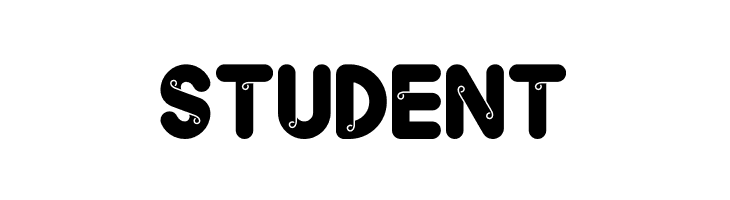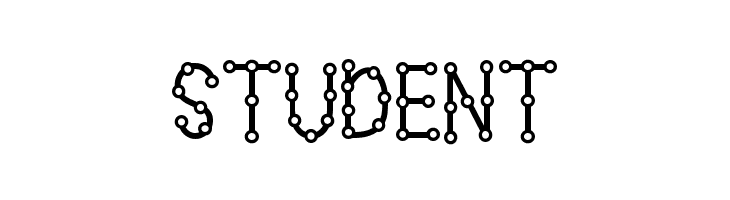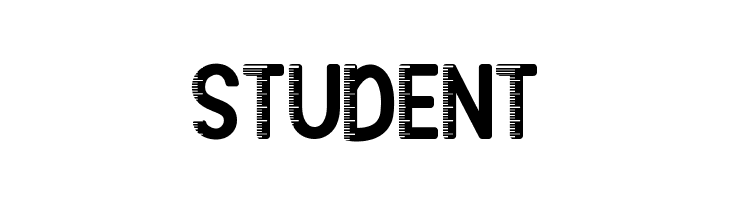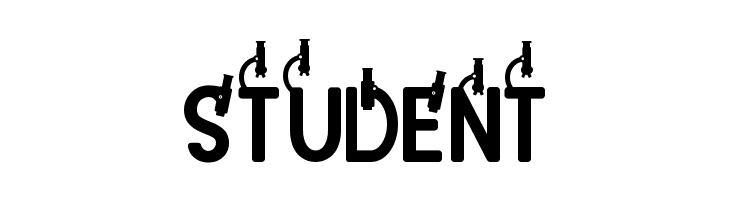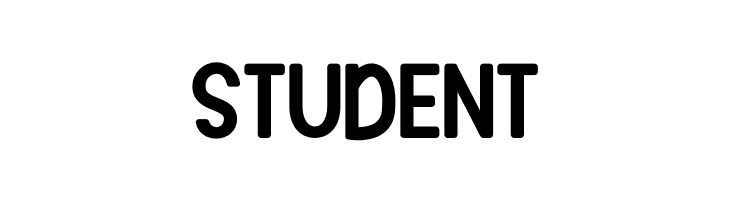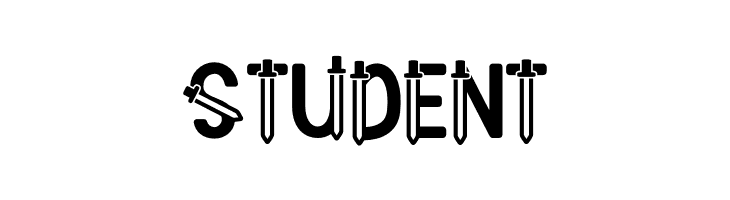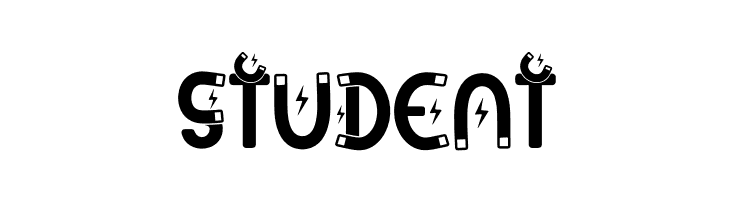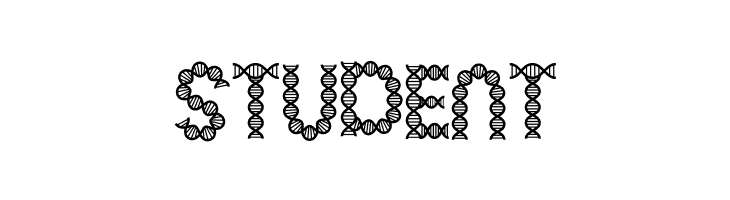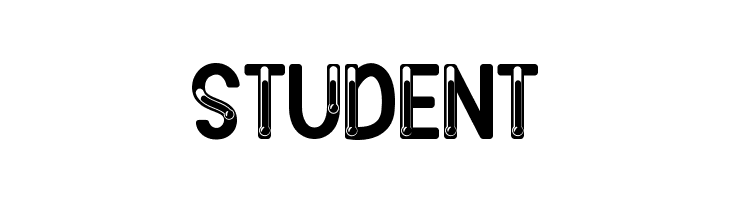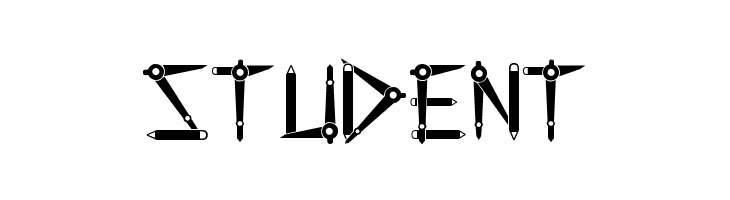
Bangoo PERSONAL USE ONLY! Font
Font by Kong Font
A bold, rounded sans-serif font with decorative accents on certain characters.
Cake Couture Font
Font by PutraCetol Studio
A bold, rounded, playful sans-serif font.
Cake Couture Eight Font
Font by PutraCetol Studio
A dotted, rounded display font suitable for playful and decorative uses.
Cake Couture Five Font
Font by PutraCetol Studio
A decorative, stitched outline font with a playful and whimsical style.
Cake Couture Four Font
Font by PutraCetol Studio
A textured, rounded, playful display font with a hand-drawn style.
Cake Couture Nine Font
Font by PutraCetol Studio
A whimsical, dessert-themed font with rounded, bold characters topped with icing-like embellishments.
Cake Couture One Font
Font by PutraCetol Studio
A bubbly, dotted outline font with a distressed look.
Cake Couture Seven Font
Font by PutraCetol Studio
A whimsical, drippy font suitable for fun and creative designs.
Cake Couture Six Font
Font by PutraCetol Studio
A whimsical, dripping outline font with dotted details, suitable for fun and creative designs.
Cake Couture Three Font
Font by PutraCetol Studio
A stitched, playful outline font with uppercase, lowercase, numbers, and symbols.
Cake Couture Two Font
Font by PutraCetol Studio
A dotted, bubbly, decorative font with uppercase, lowercase, numbers, and symbols.
Clever Science Font
Font by PutraCetol Studio
A rounded, casual sans-serif font suitable for informal designs.
Clever Science Caliper Font
Font by PutraCetol Studio
A mechanical, circuit-inspired font with interconnected elements.
Clever Science Dna Font
Font by PutraCetol Studio
A floral, outline decorative font with detailed petal motifs.
Clever Science DNA 2 Font
Font by PutraCetol Studio
A decorative DNA helix patterned font for creative use.
Clever Science Lab Font
Font by PutraCetol Studio
A whimsical, outlined font with decorative dots and playful style.
Clever Science Link Font
Font by PutraCetol Studio
A dotted, circuit-inspired font with a modern, tech aesthetic.
Clever Science Magnet Font
Font by PutraCetol Studio
A whimsical, bold display font with lightning bolt details.
Clever Science Mircoscope Font